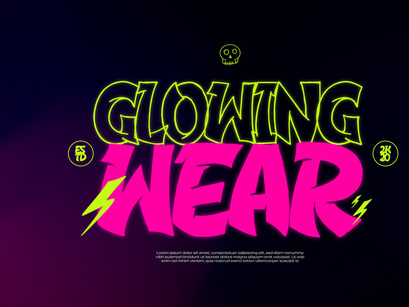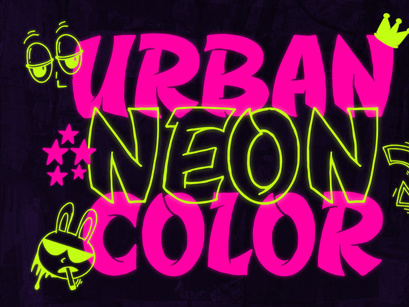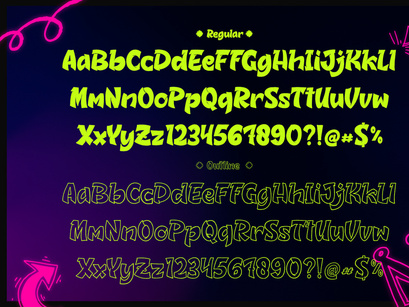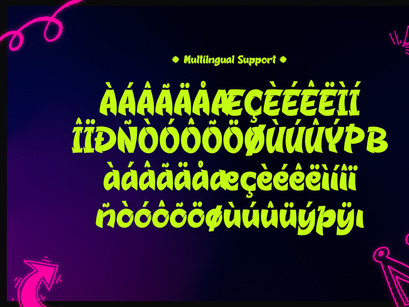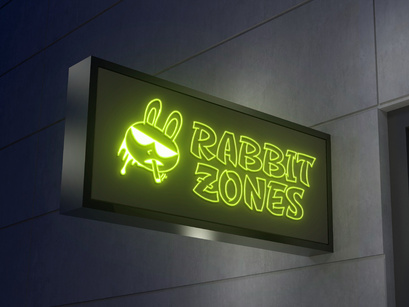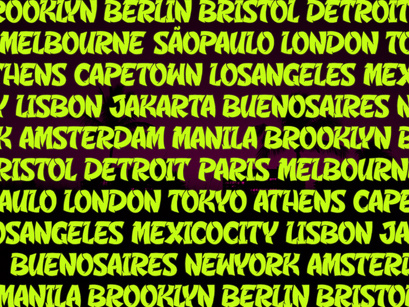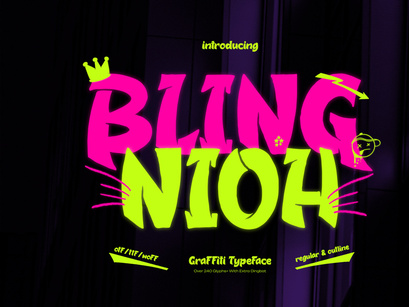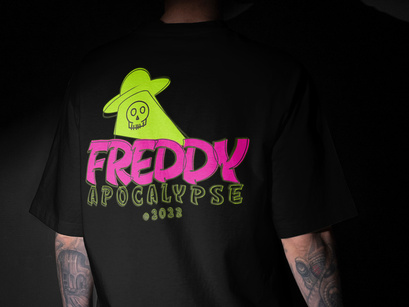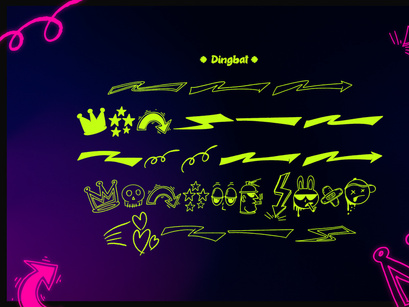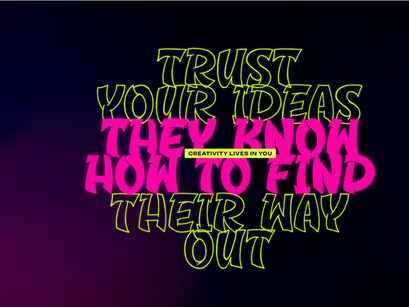
Bling Nioh | Graffiti Typeface
Bling Nioh
Bling Nioh Dingbat
Bling Nioh Outline
Bling Nioh | Graffiti Typeface, from Gracetypestudio, suitable for any projects such as: logos, branding projects, homeware designs, product packaging, mugs, quotes, posters, shopping bags, t-shirts, book covers, name card, invitation cards, greeting cards, label, photography, watermark, special events, and all your other lovely projects that need a Graffiti Typeface taste.